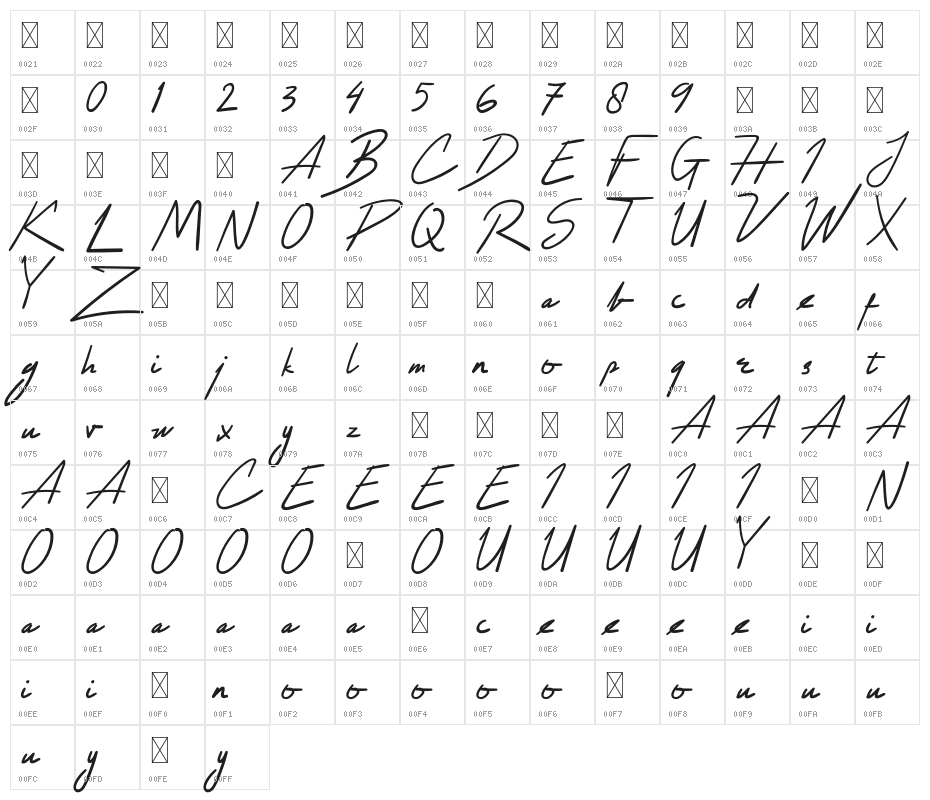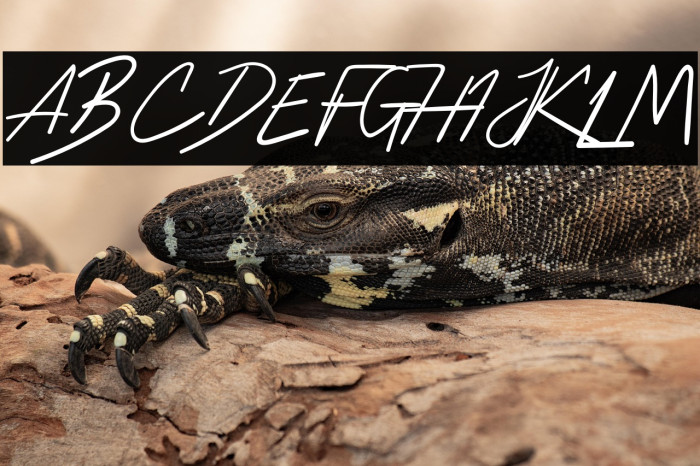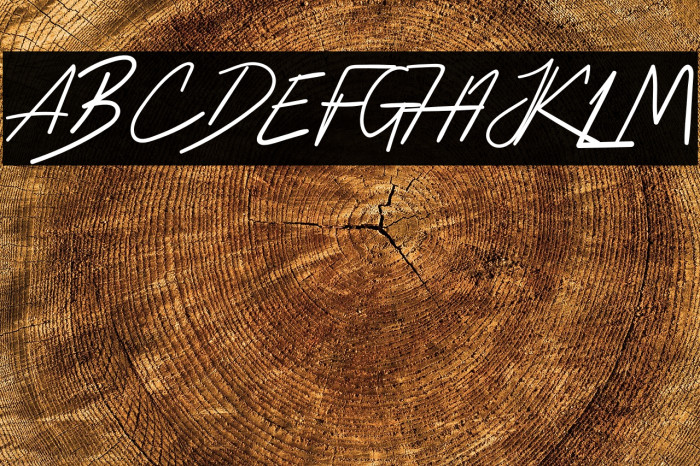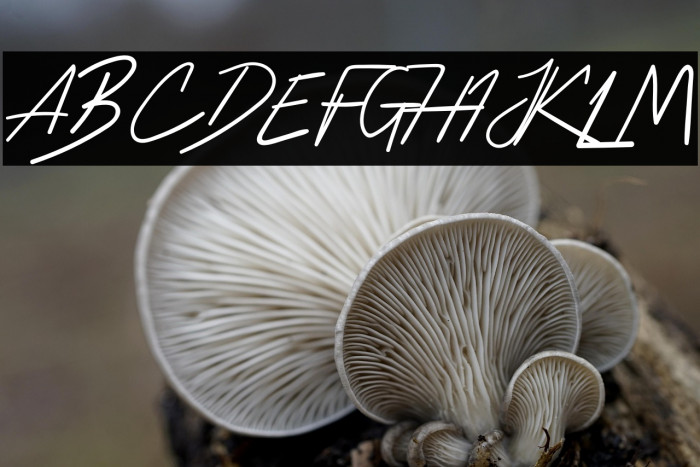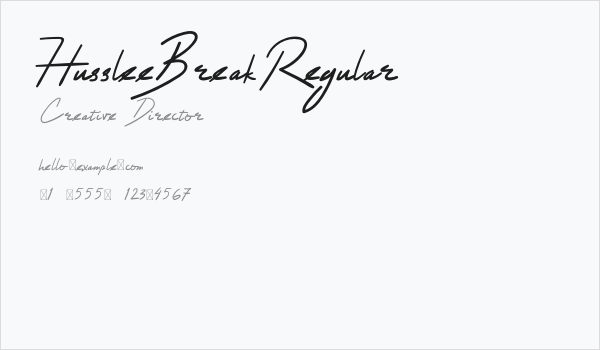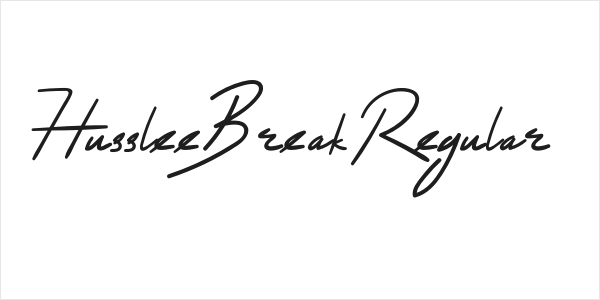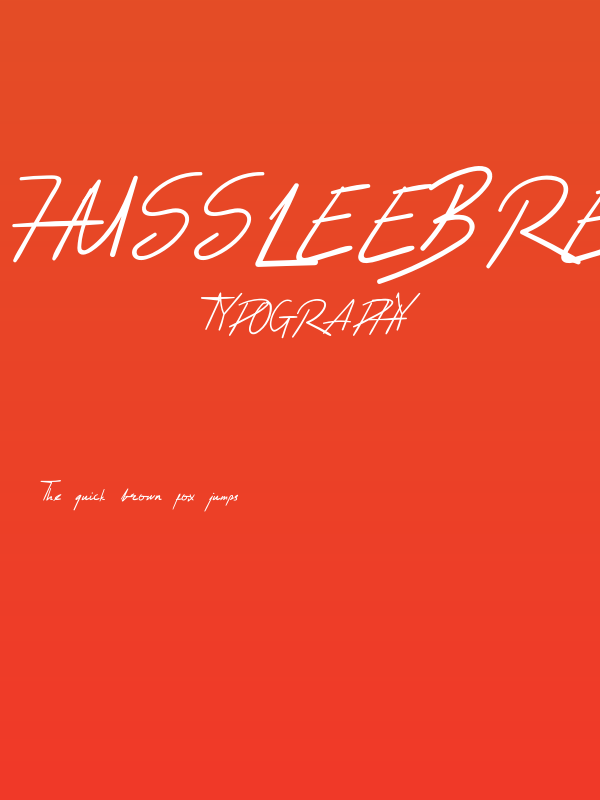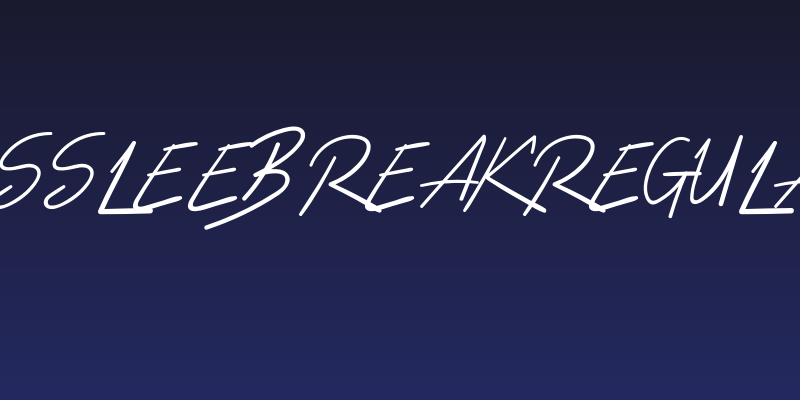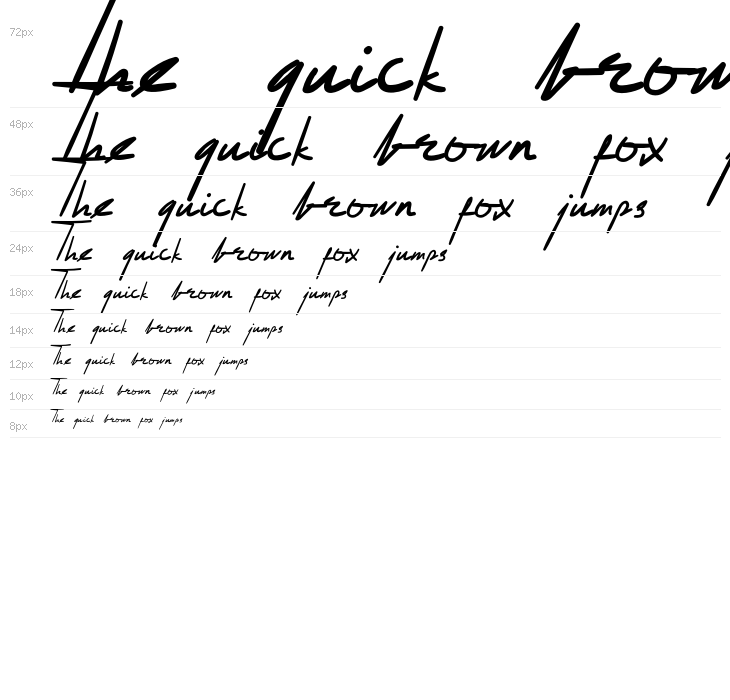
HussleeBreakRegular Font
HussleeBreakRegular Description
This font exhibits a dynamic and energetic handwritten style, characterized by its fluid and cursive letterforms. The uppercase letters are bold and slightly slanted, giving a sense of motion and urgency. The lowercase letters maintain a consistent flow, with smooth curves and a natural, informal appearance. The numerals are clear and legible, matching the overall aesthetic of the font. The absence of special characters suggests a focus on simplicity and directness. This font is ideal for projects that require a personal touch or a sense of spontaneity.
| Use Case | Logos, Headlines, Informal Text |
| Proposed Projects | Ideal for personal branding, greeting cards, invitations, and informal communication. |